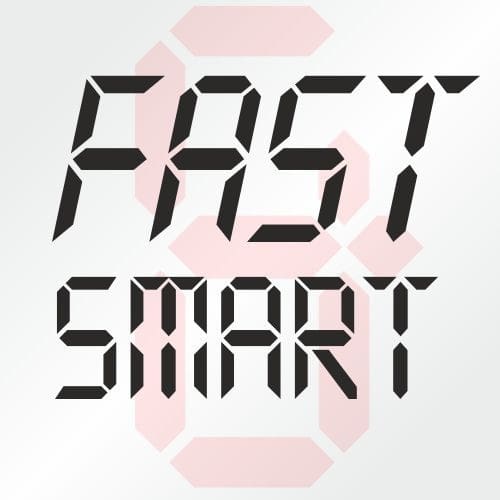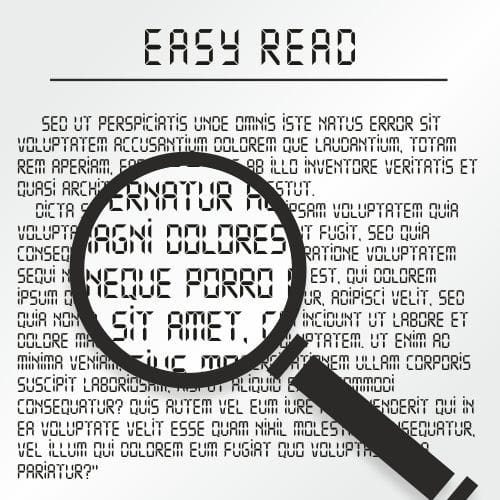
Typo Digit Font
Typo Digit Font is a futuristic font style with sophisticated, modern and minimalist allcaps characters. Its futuristic aesthetics bring a whole new dimension to your designs, making them stand out. Whether you’re working on a website, poster, logo, or any other project, this font adds that extra touch of innovation and sophistication.